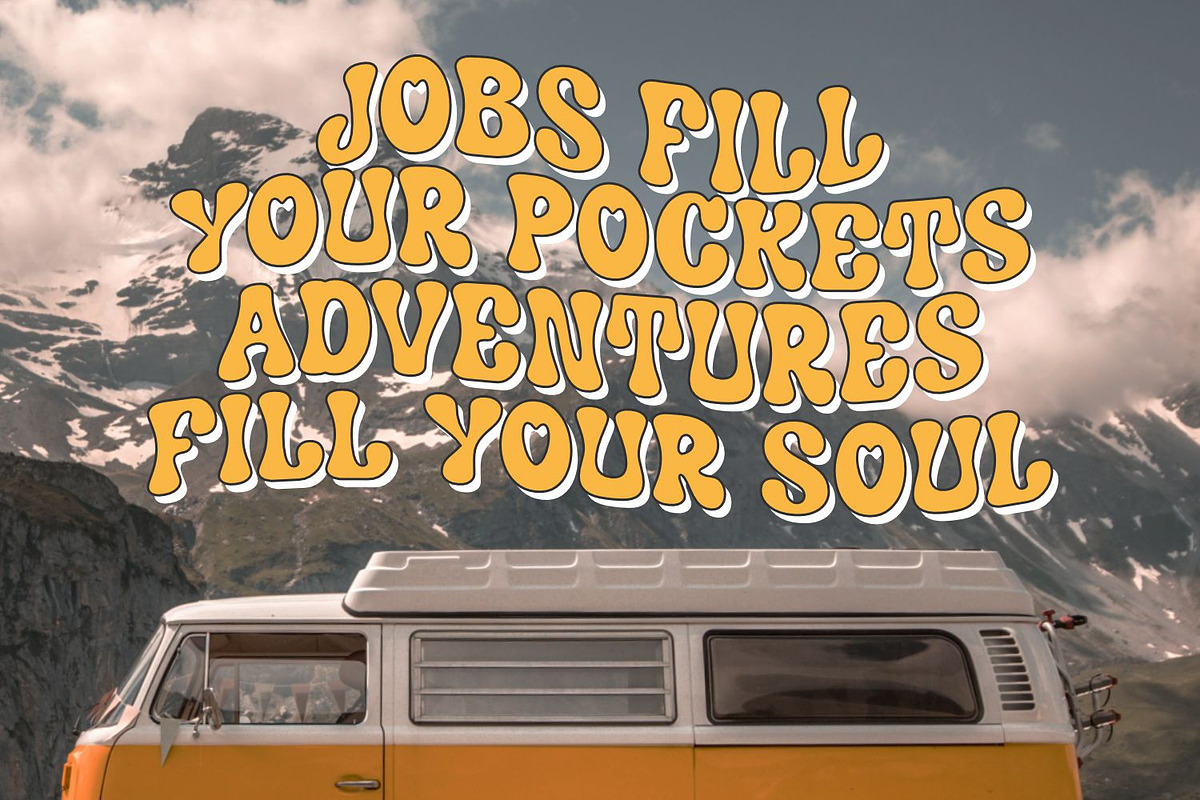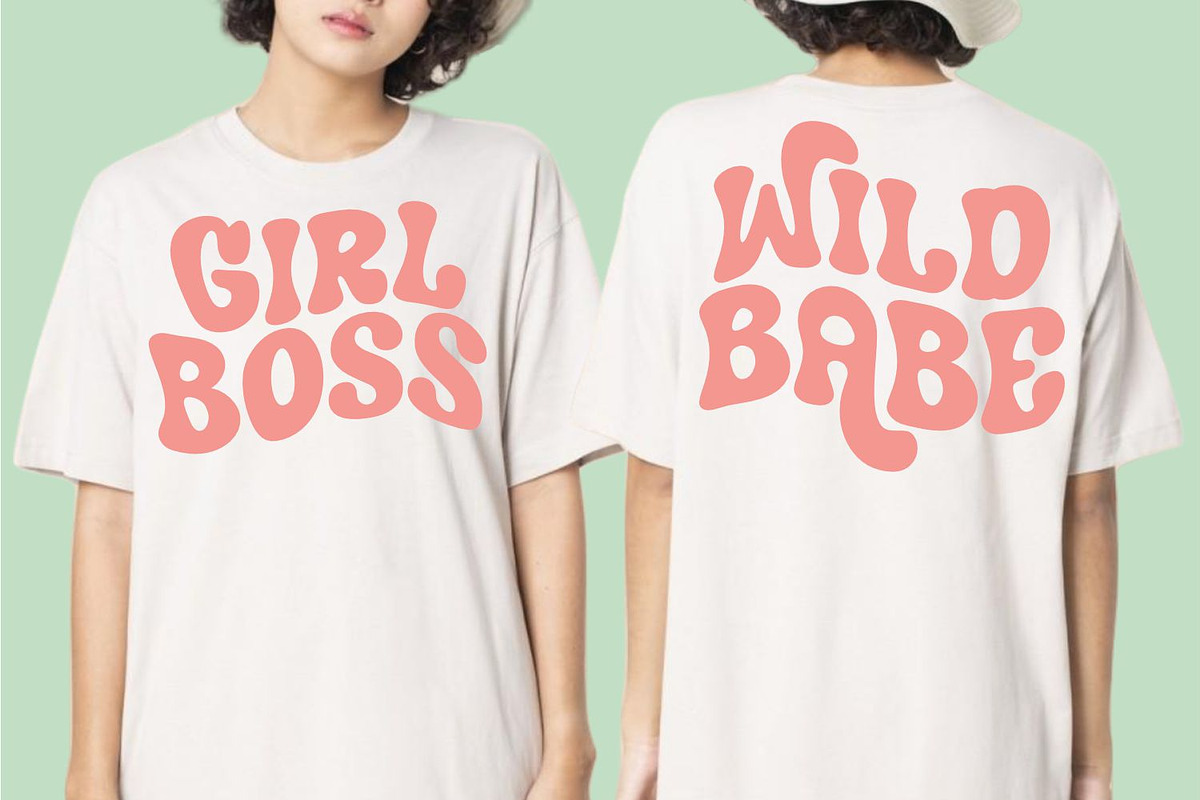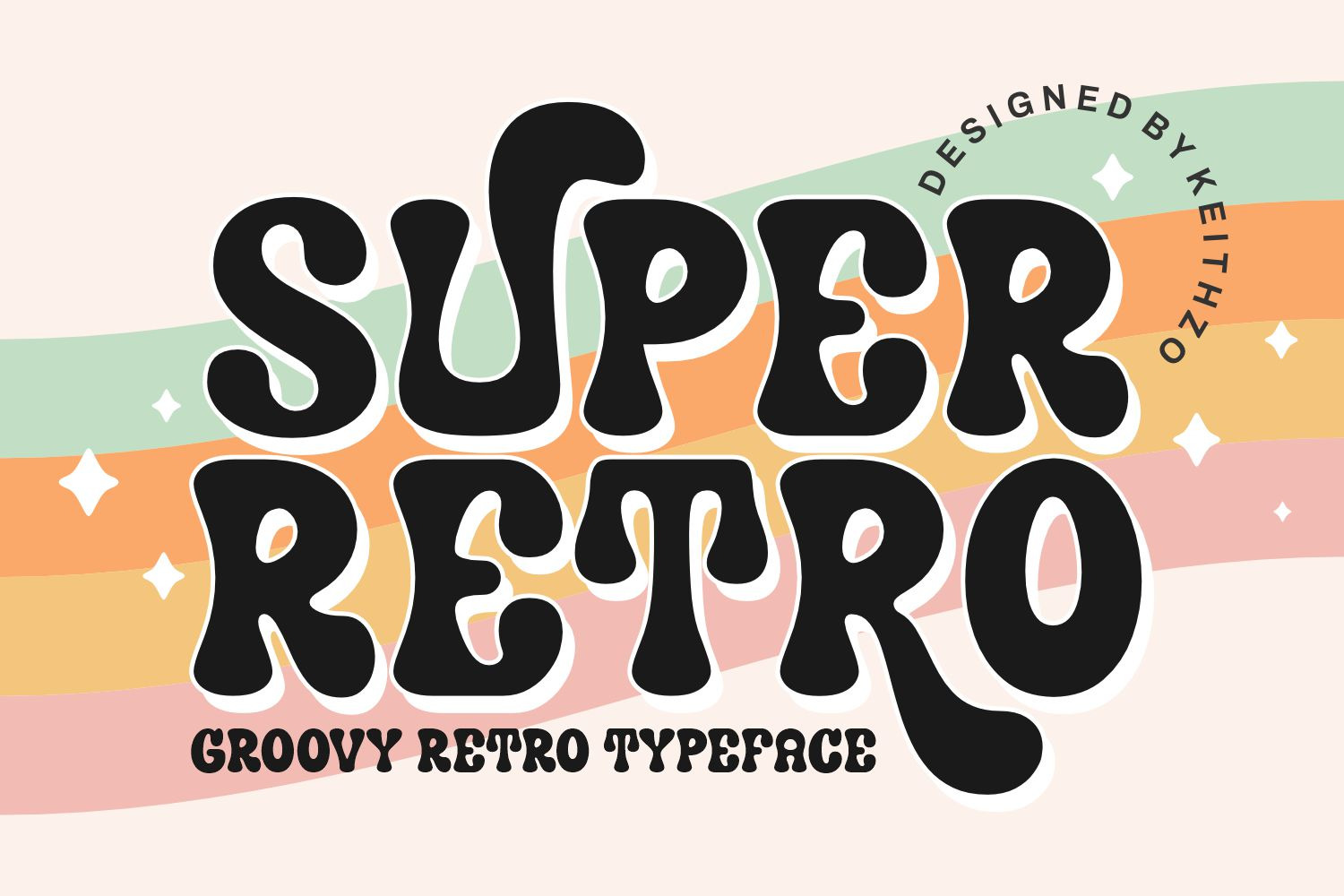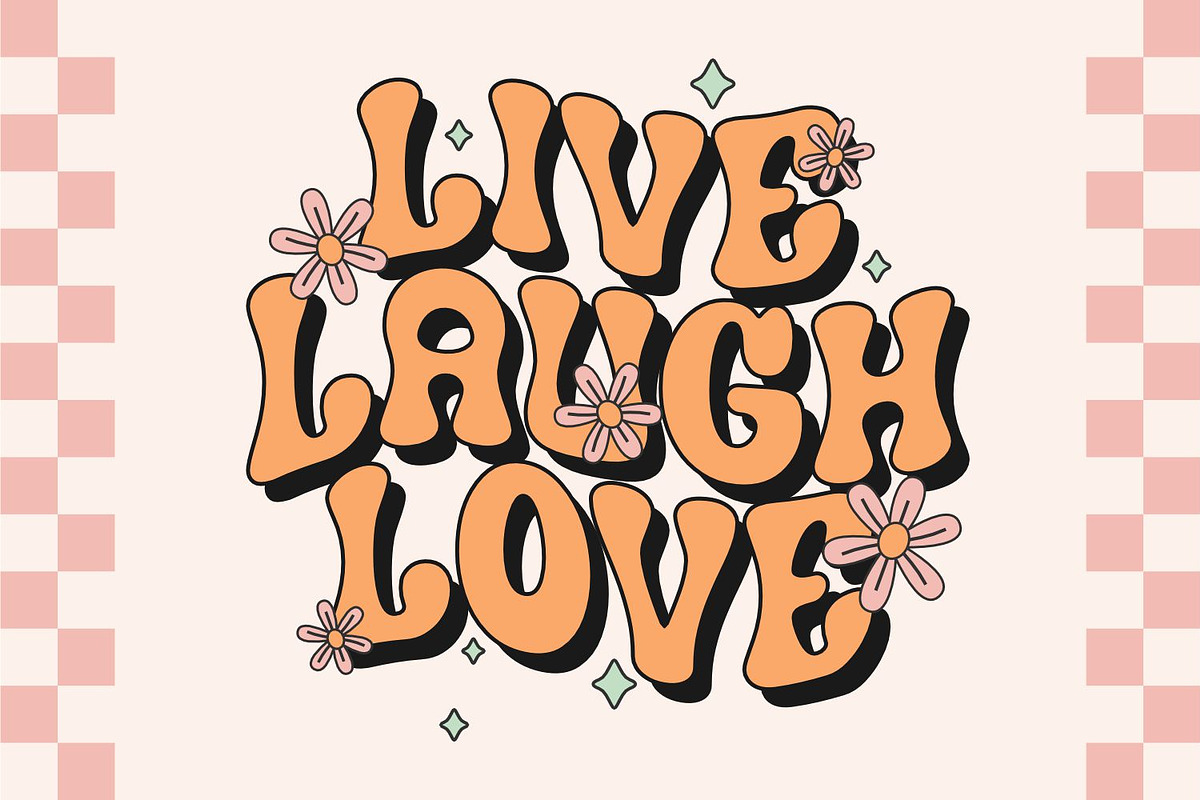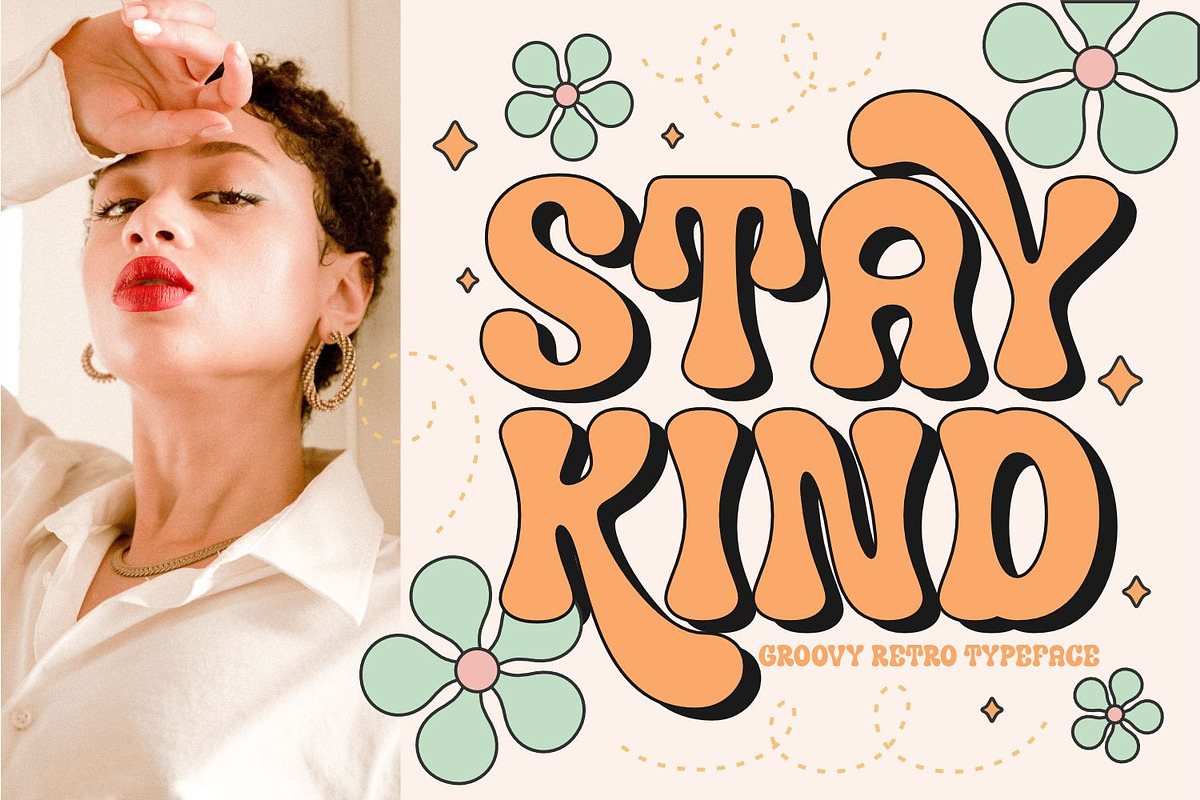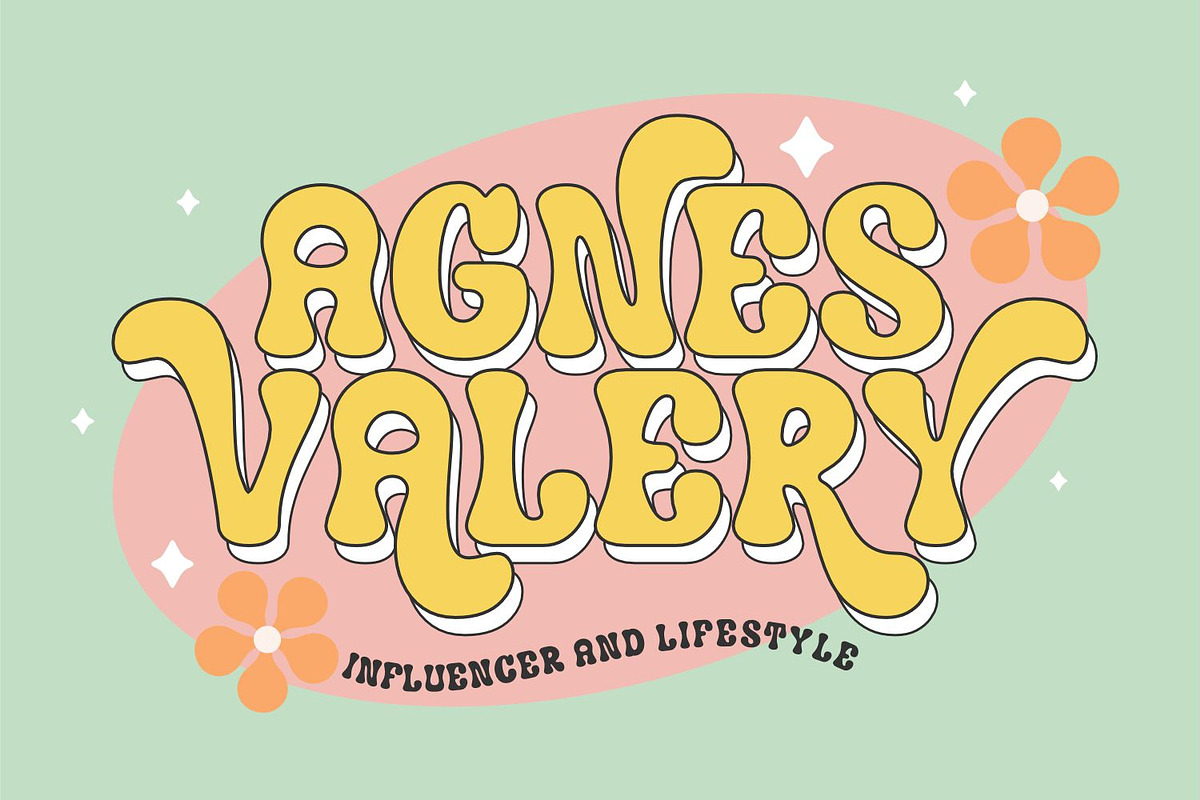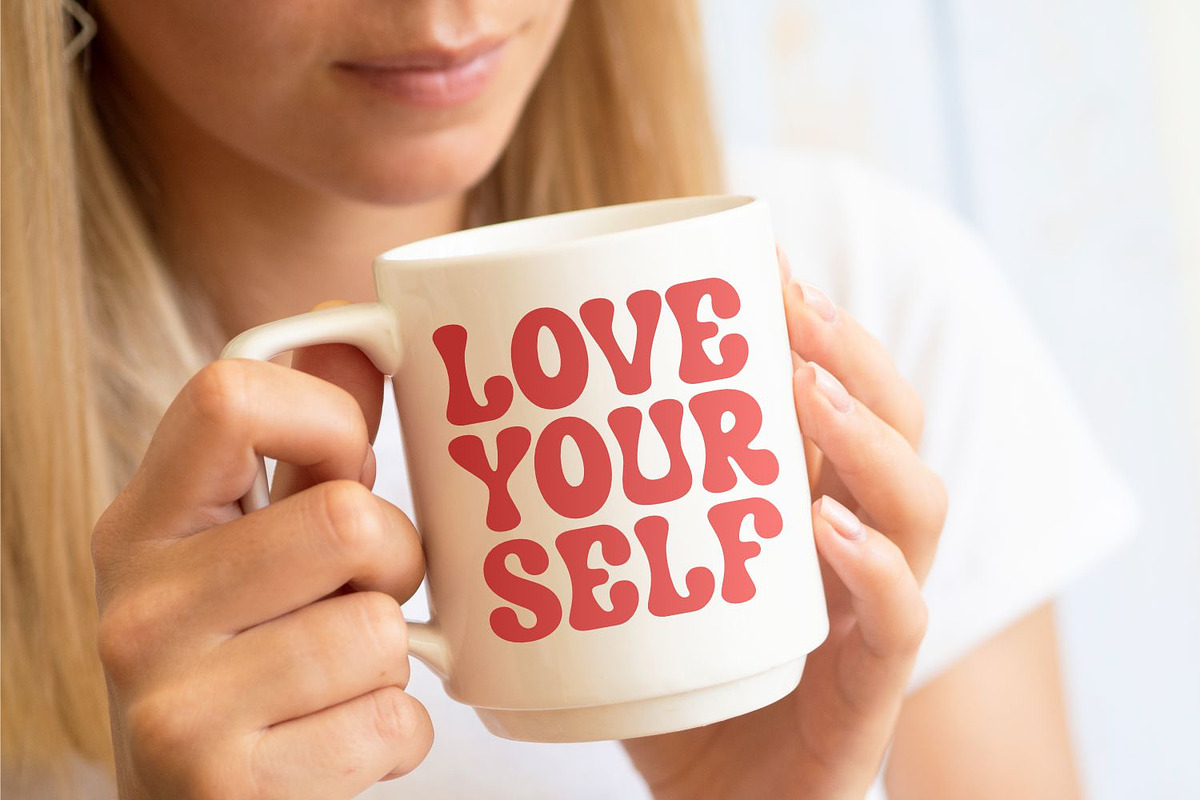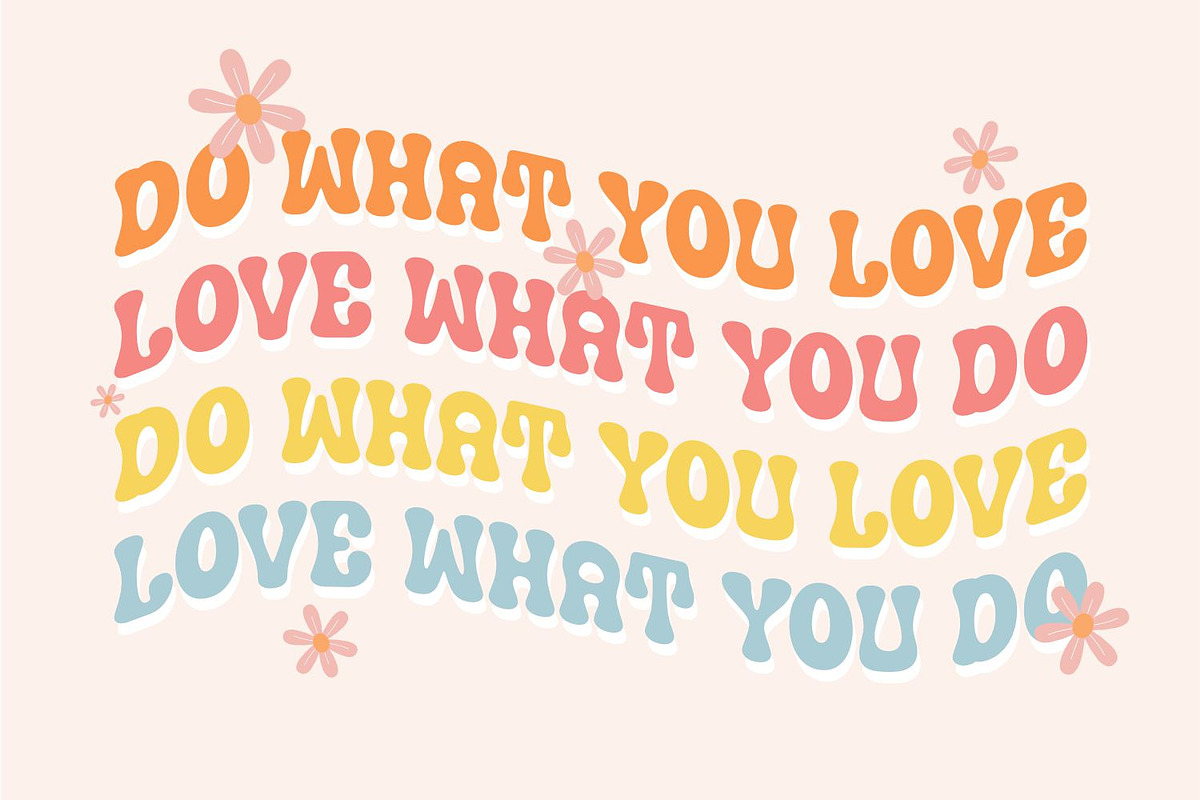
Super Retro - Groovy Font
Super Retro is a retro groovy display font. Use this display font to add that special retro touch to any design idea you can think of.. Masterfully designed to become a true favorite, this font has the potential to bring each of your creative ideas to the highest level!
Very suitable for logotype, Stickers, Packaging design, Cricut Project, headlines, brand identity, t shirt or apparel industry, posters, magazines, books, YouTube, Instagram, websites, or any of your creative design projects.